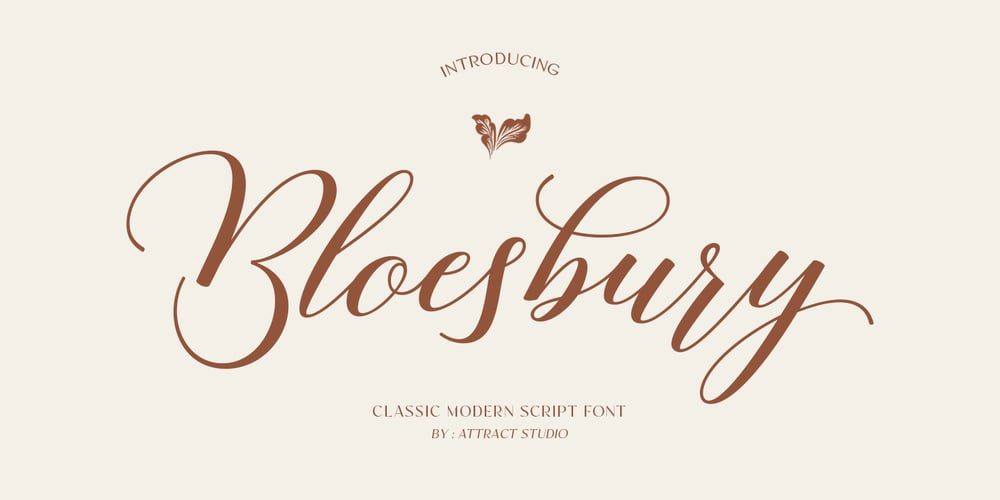
Bloesbury
Bloesbury font
Bloesbury Font Family was designed by Muammar Kadafi and published by Attract Studio. Bloesbury contains 1 styles and family package options. Bloesbury is a modern style script font inspired by handwriting. This font is suitable for your design needs and can be combined with other fonts. Which is perfect for your design needs such as branding, logo design, wedding invitations, decorations, and more.Font Pairing : KeginaIncluding: Alternates & Ligatures OpenType support Multilingual PUA encoded.